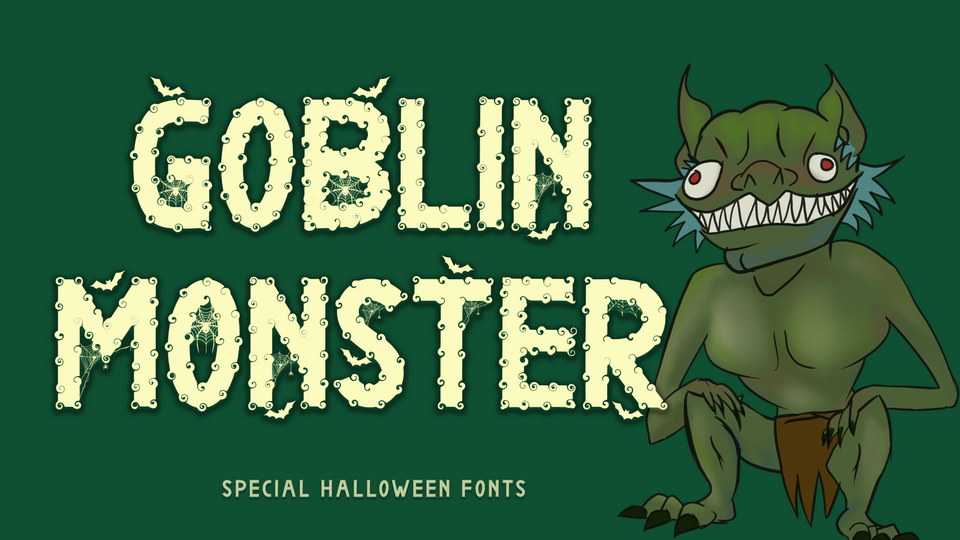
Download Goblin Monster font, a creepy and uniquely designed display typeface. Goblin Monster is perfectly suitable for any Halloween-related project or crafty idea.